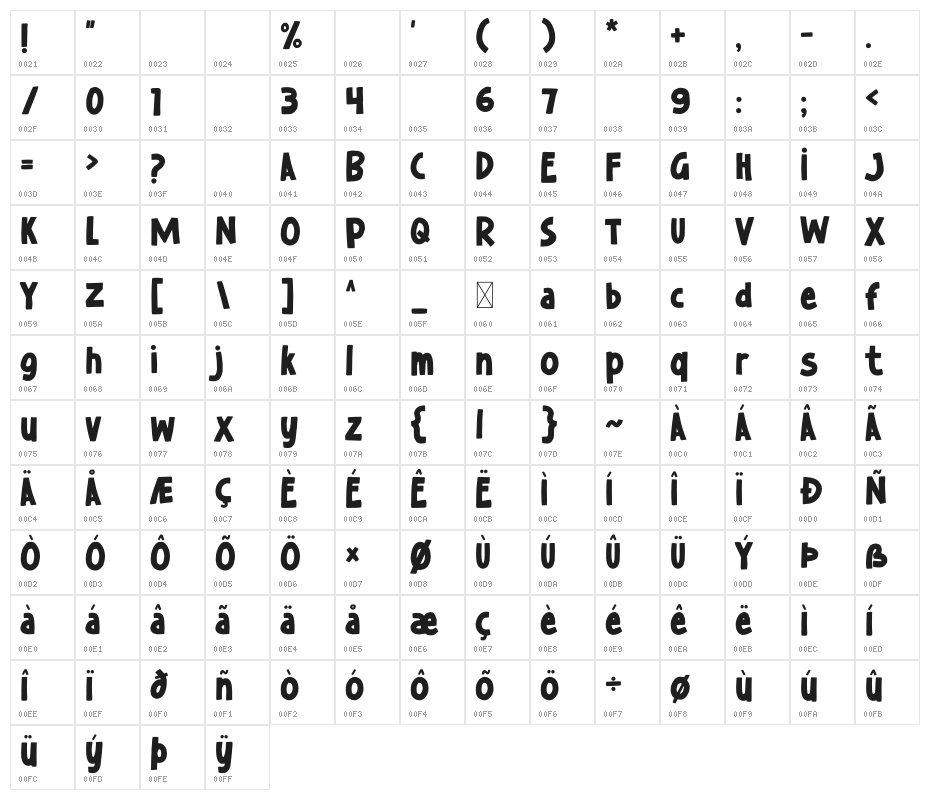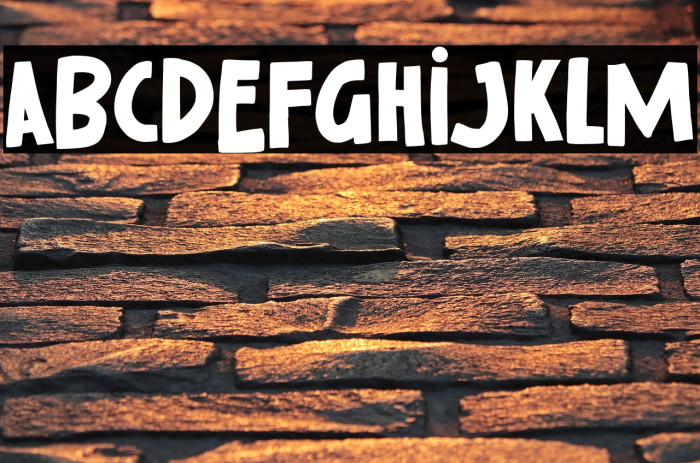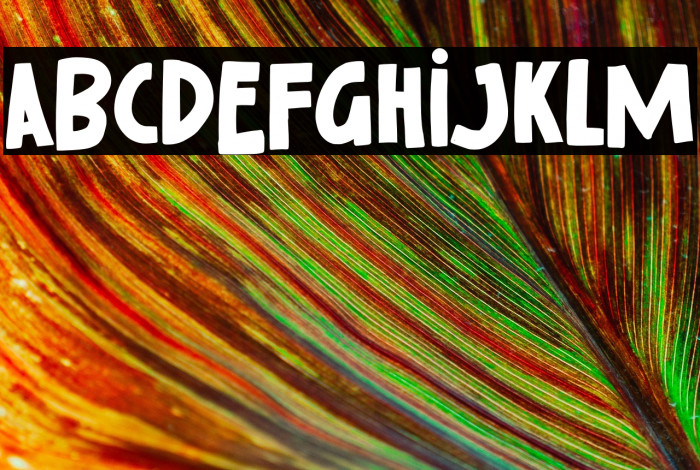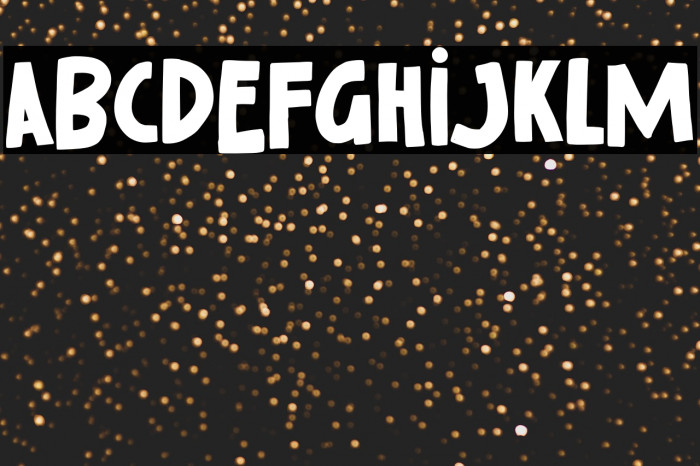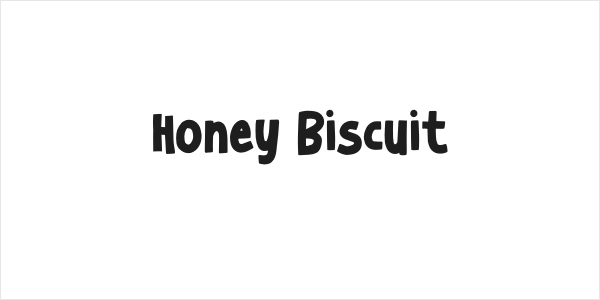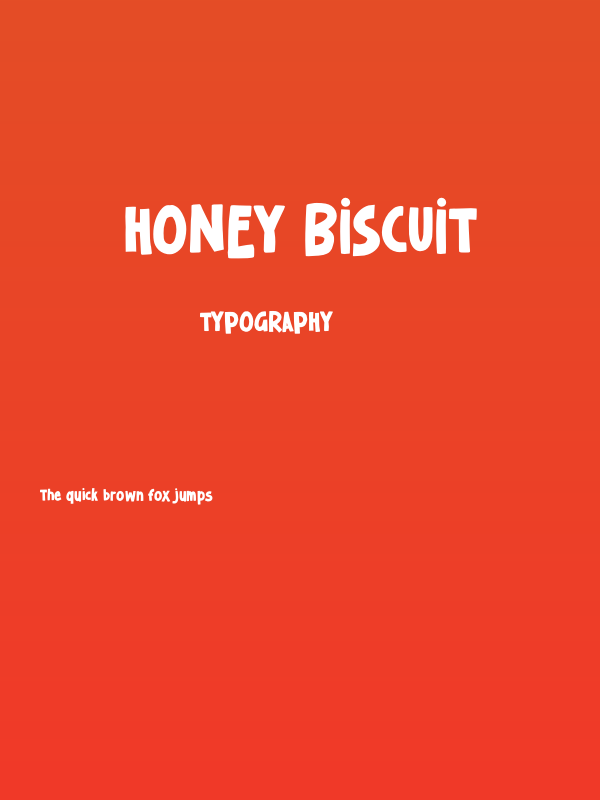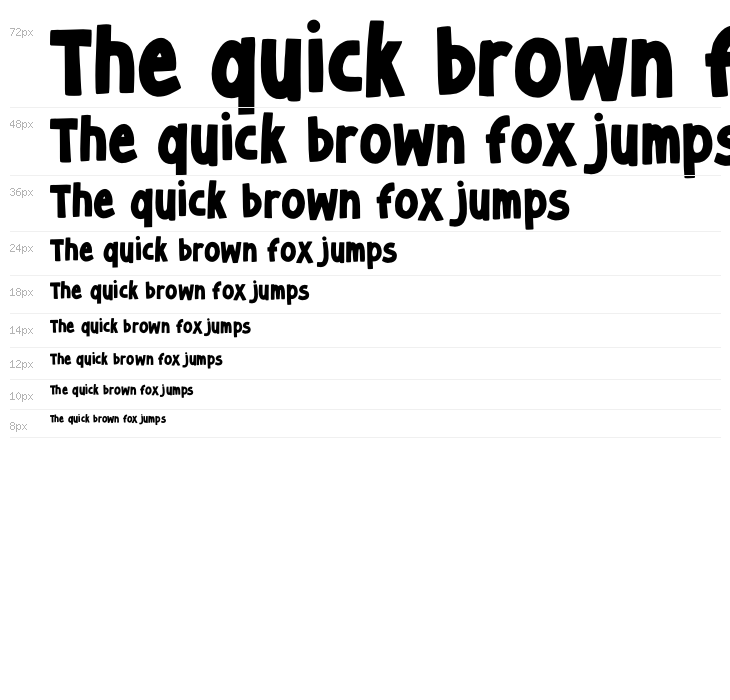
Honey Biscuit Font
Honey Biscuit Description
This playful and bold font features a whimsical, hand-drawn style with thick, rounded strokes that give it a friendly and approachable appearance. The characters are slightly irregular, adding to its charm and making it ideal for informal and creative projects. The uppercase and lowercase letters maintain a consistent style, with a noticeable emphasis on curves and rounded edges. The numbers and special characters are equally bold and expressive, ensuring a cohesive look across all text elements. This font's unique personality makes it perfect for designs that require a touch of fun and creativity.
| Use Case | Logos, Posters, Children's books |
| Proposed Projects | Ideal for children's books, playful branding, greeting cards, and creative posters. |